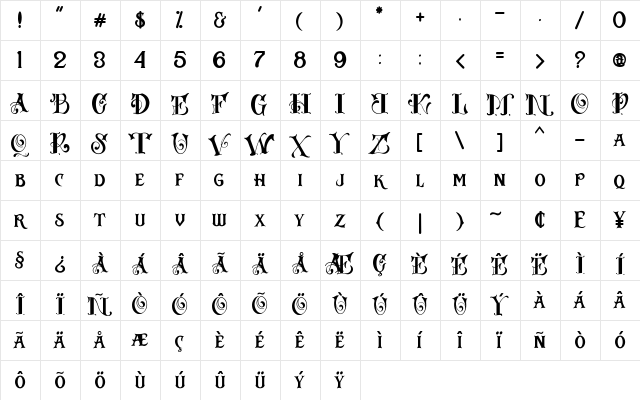
Russel dexter Regular
Foundry: Stringlabs
Designer: Stringlabs
Design Context for Russel dexter
Russel dexter is a composed and adaptable typeface that performs quietly and consistently across a wide range of design contexts.